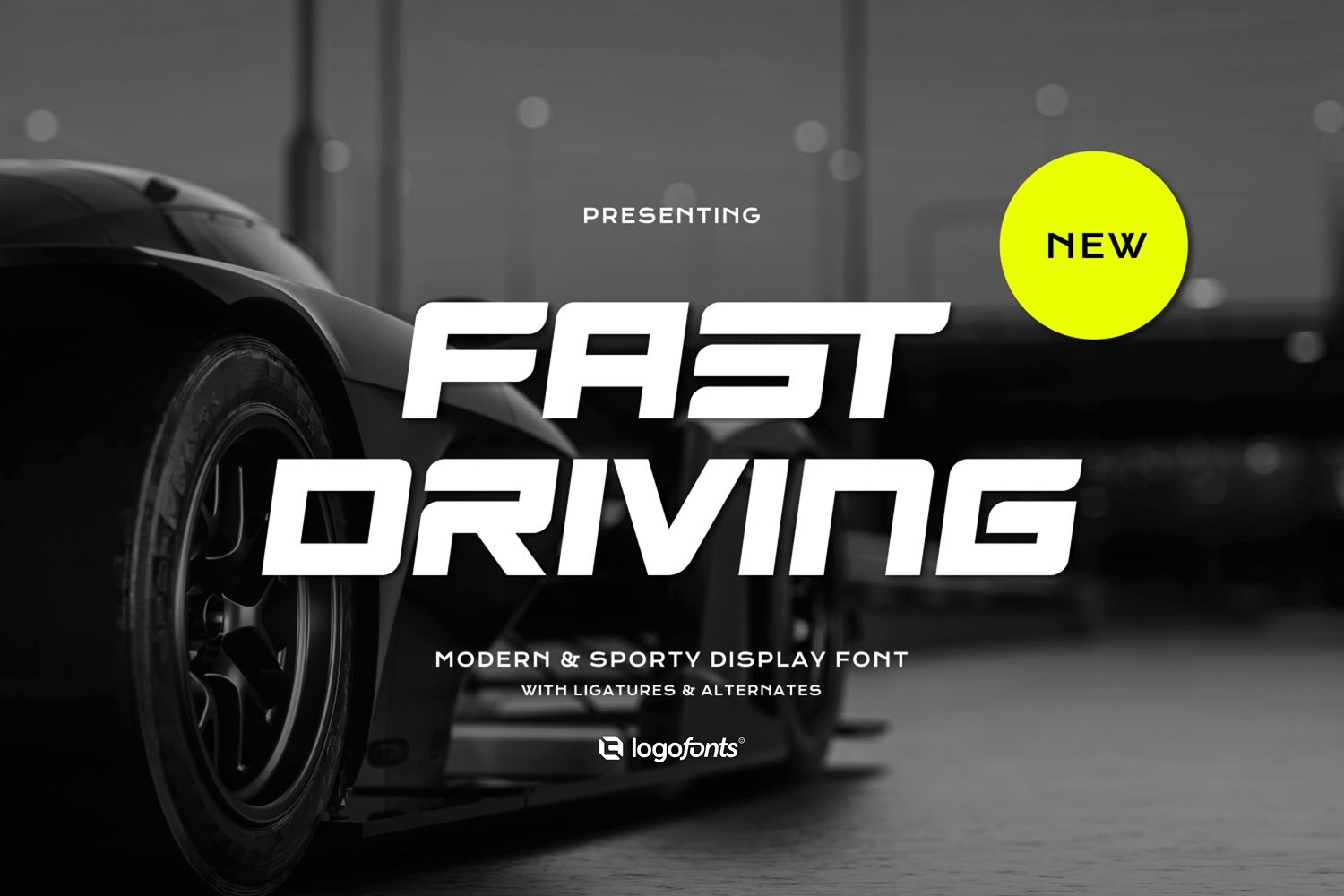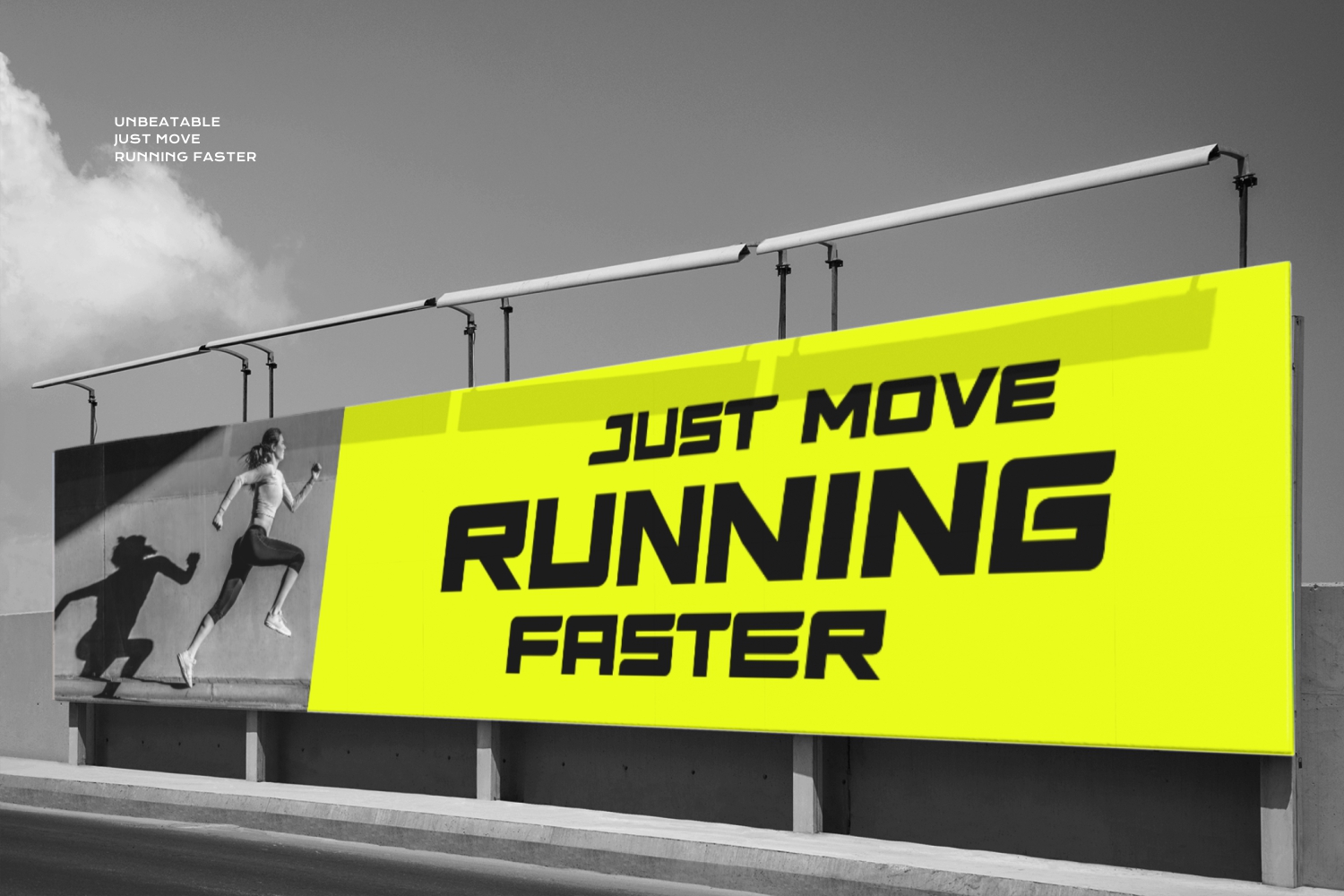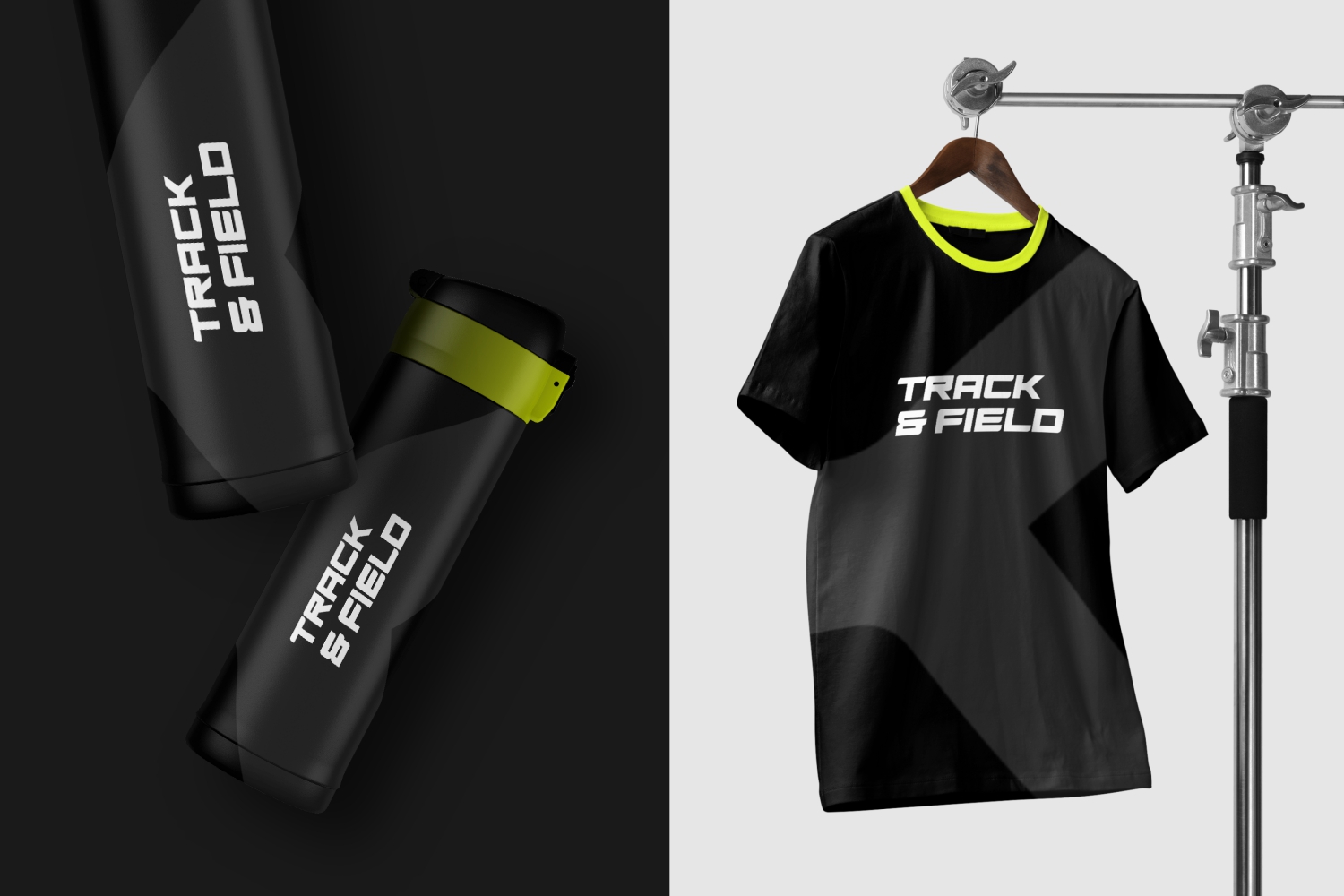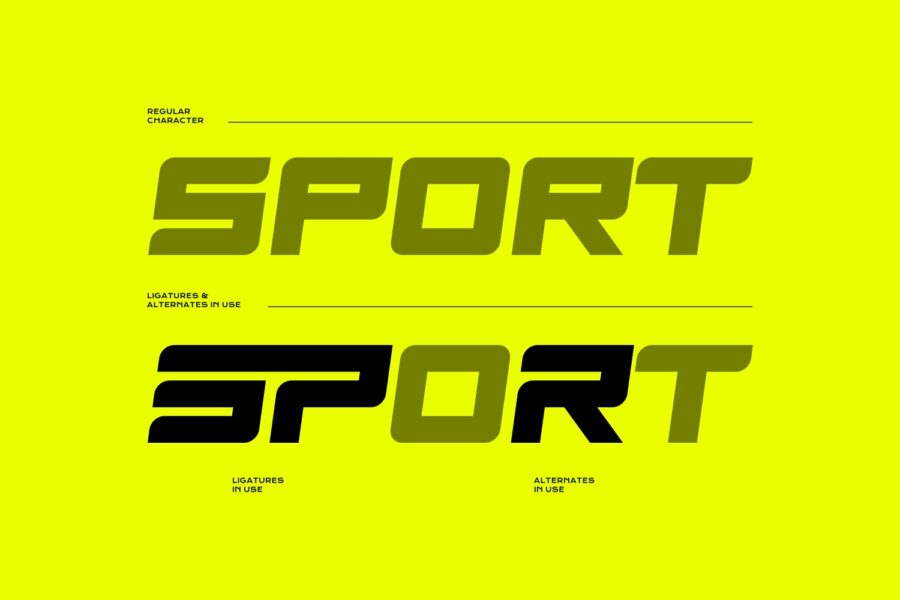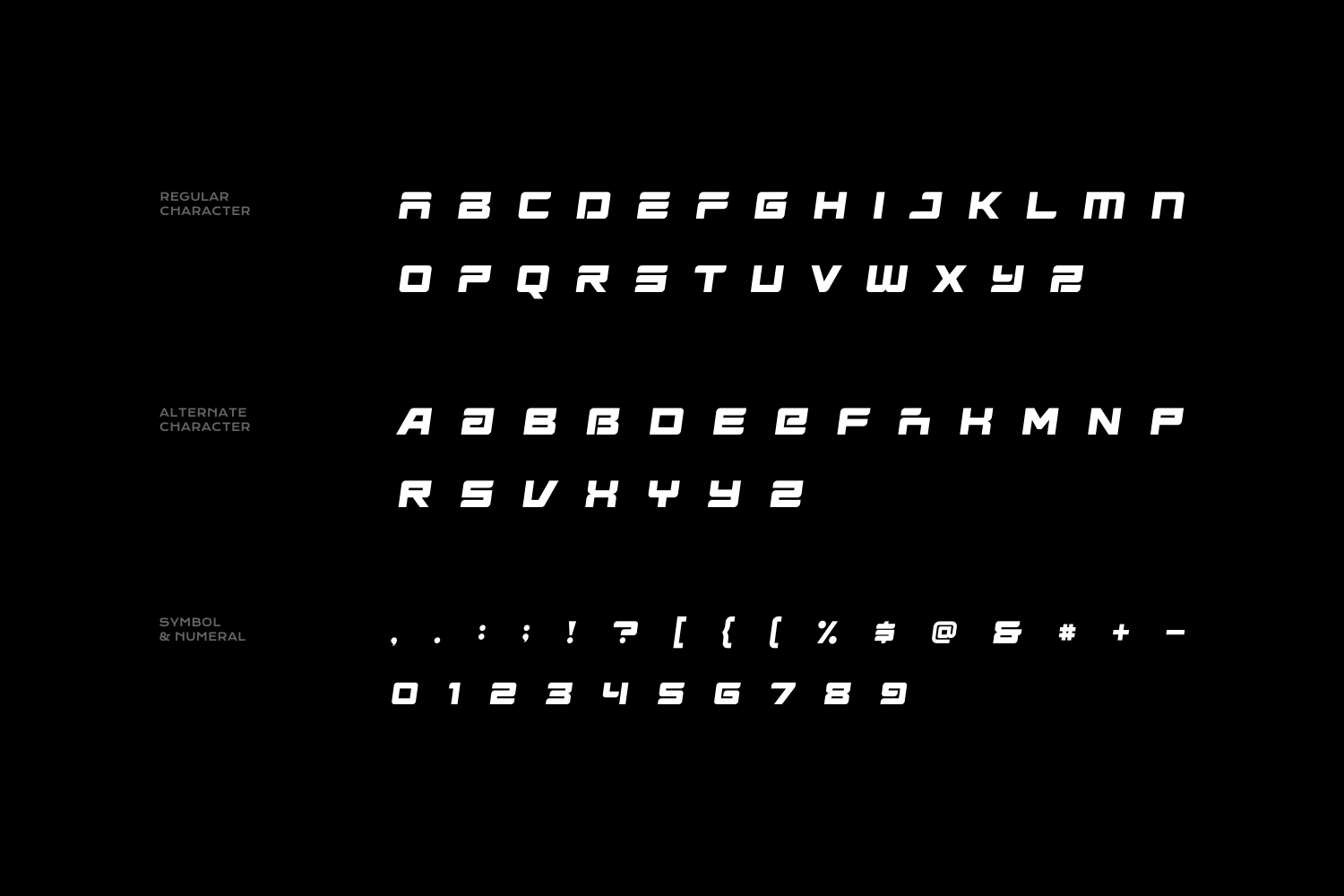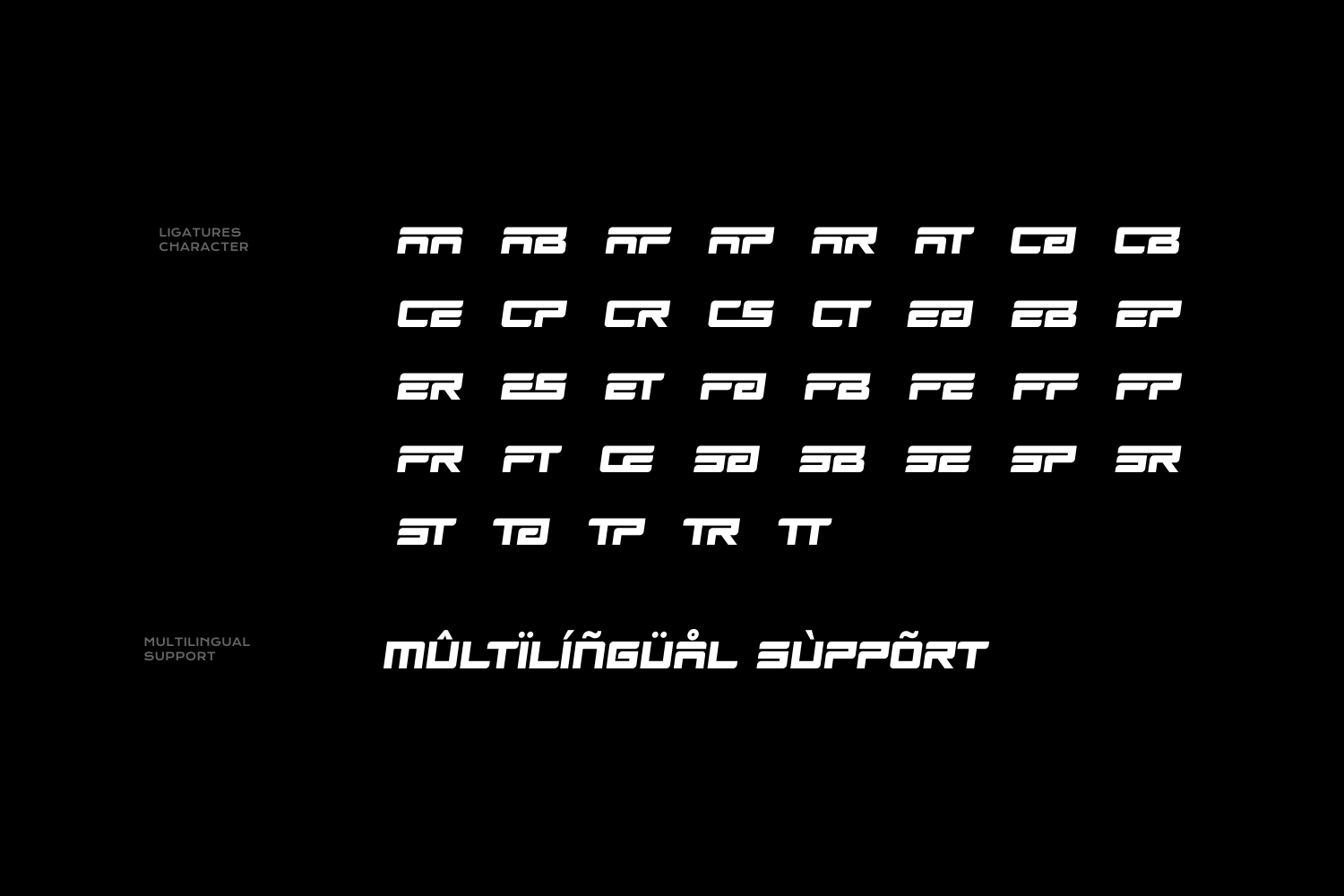
Fast Driving is a bold and futuristic display font designed to capture the essence of speed, performance, and movement. With its aerodynamic letterforms, sharp angles, and dynamic alternates, this typeface is ideal for projects related to motorsports, activewear, energy drinks, and anything that wants to shout “faster, stronger, bolder!” It also comes packed with stylistic alternates, ligatures, and multilingual support—perfect for creating eye-catching headlines and striking brand identities.
Whether you’re designing a billboard for a track event, apparel for runners, or a sleek product label, Fast Driving delivers an energetic and aggressive aesthetic. Its unique structure makes it highly readable while still being expressive, making it suitable for both digital and print use in sports, automotive, and modern tech visuals.